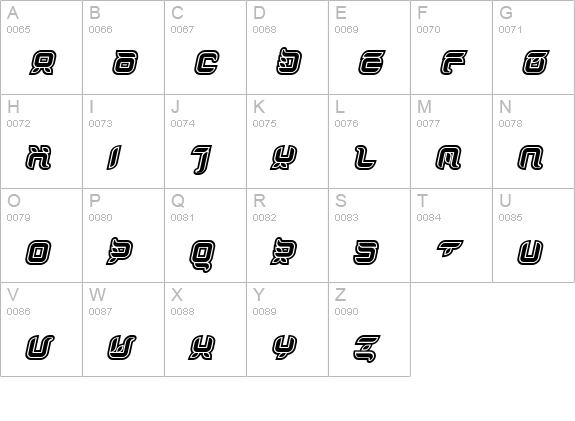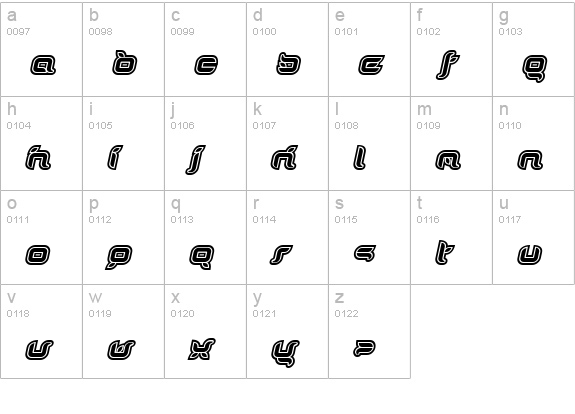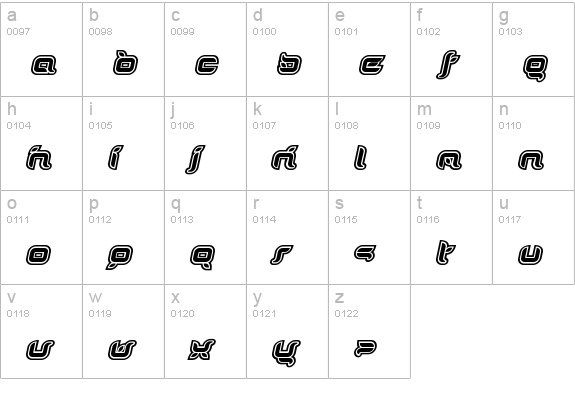
DorisOrangeOutlineItalic Font Details
DorisOrangeOutlineItalic is a bold and eye-catching font that combines the elegance of italic lettering with a playful touch of orange outline. This unique typeface is perfect for projects that require a modern and dynamic look, such as posters, logos, and branding materials. Its distinct design will make your text stand out and grab the attention of viewers. Best of all, DorisOrangeOutlineItalic is available for free download at FontsMarket.com. Whether you're a graphic designer looking to add a fresh font to your collection or a business owner in need of a striking typography for your marketing materials, this font is a great choice. Download DorisOrangeOutlineItalic today and start creating visually stunning designs with ease.